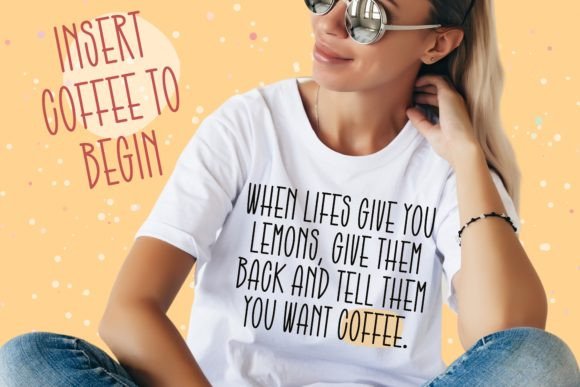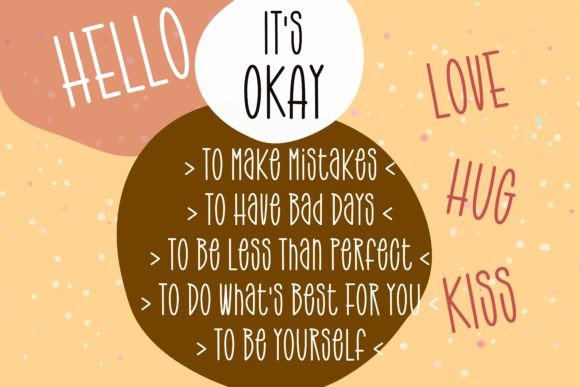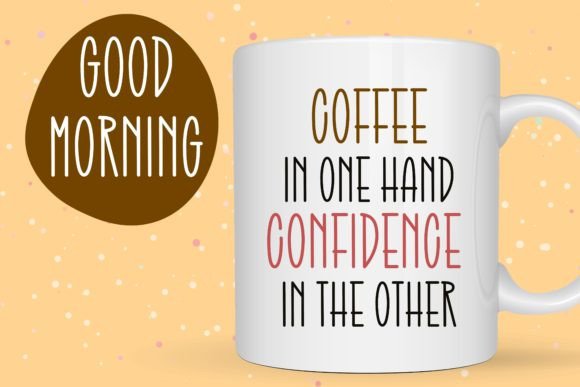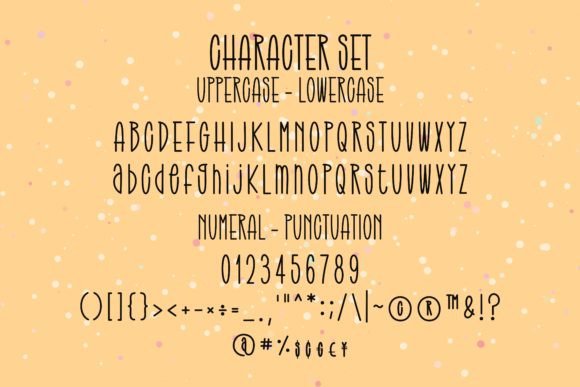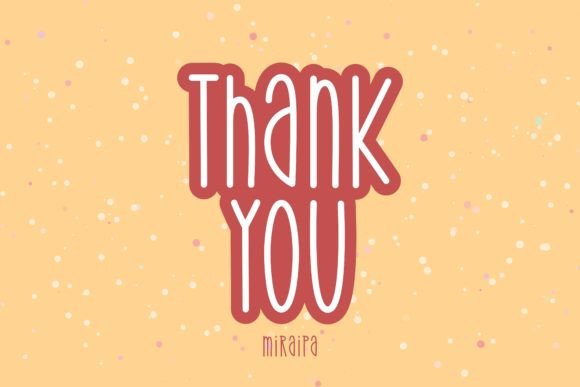
Introduction to Never Mars Font
Have you ever stumbled upon a font that instantly sparks creativity and sets your imagination ablaze? For designers, finding the perfect font can be a game-changer, elevating a project from good to great. And that’s exactly what the Never Mars Font does – it brings a touch of whimsy and charm to any design, making it perfect for high-quality, creative projects.
With its sans-serif style and transparent background, the Never Mars Font is a valuable design resource for anyone looking to add a friendly, approachable feel to their work. Whether you’re working on a fun project or a DIY initiative, this font is sure to bring your ideas to life. And the best part? It’s available for free download, making it an accessible addition to any designer’s library.
Key Features of Never Mars Font
- High-quality, hand-drawn design suitable for creative projects and personal use.
- Transparent background, making it easy to layer over images and other design elements.
- Designed to be versatile and suitable for a wide range of design applications, from logos to typography.
- Includes a range of weights and styles, allowing for easy customization and experimentation.
Honest Review: Never Mars Font
As a designer, I’m always on the lookout for high-quality design resources to elevate my creative projects. Recently, I stumbled upon the Never Mars Font, and I must say, it’s been a game-changer for my latest designs.
- Unique aesthetic: The Never Mars Font boasts a distinctive, out-of-this-world look that’s perfect for futuristic and sci-fi projects.
- High-resolution graphics: The font’s high-quality design ensures that it looks crisp and clear on various devices and screen sizes.
- Limited font styles: The Never Mars Font currently only comes in a single style, which may limit its versatility for some designers.
- Transparent background: The font’s transparent background can sometimes make it difficult to use on certain backgrounds, requiring additional design work to achieve the desired effect.
Overall, I’m impressed with the Never Mars Font’s potential and versatility. While it may have some limitations, its unique aesthetic and high-quality design make it a valuable addition to any designer’s toolkit. With some additional font styles and customization options, this font could truly reach its full potential.
Orbitron Font
Orbitron Font is a futuristic and high-tech typeface perfect for creative projects requiring a bold and dynamic aesthetic. It features a transparent background and is often used in space-themed and sci-fi designs. Orbitron Font is available for free download and is known for its versatility, making it suitable for use on various design resources. In comparison to Never Mars Font, Orbitron Font has a more dramatic and attention-grabbing feel, with bold flourishes and a more aggressive design.